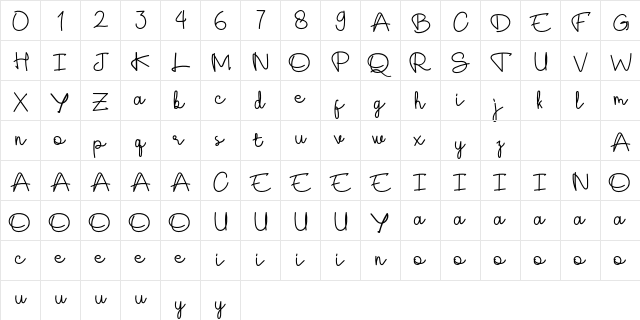
Tyllapia - Demo Regular
| Designer | Amar Ma'Arif |
Design Context for Tyllapia - Demo Typeface
Tyllapia - Demo is a composed and adaptable typeface that performs quietly and consistently across a wide range of design contexts.